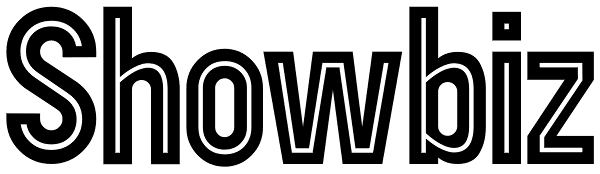
Showbiz
An all singing, all dancing performer, Showbiz is the perfect font for those who want to sprinkle a little stardust on their typography and give a sense of occasion to their special announcements. It's an in-line version of Studio K's Red Top...